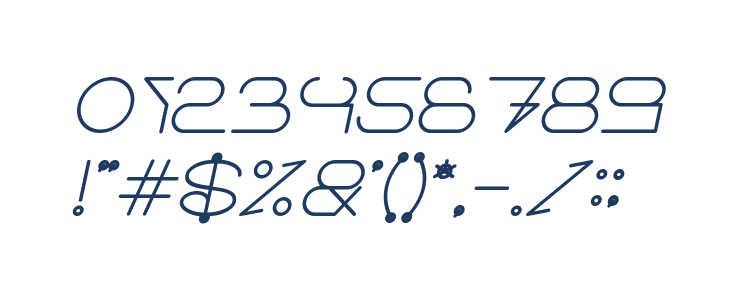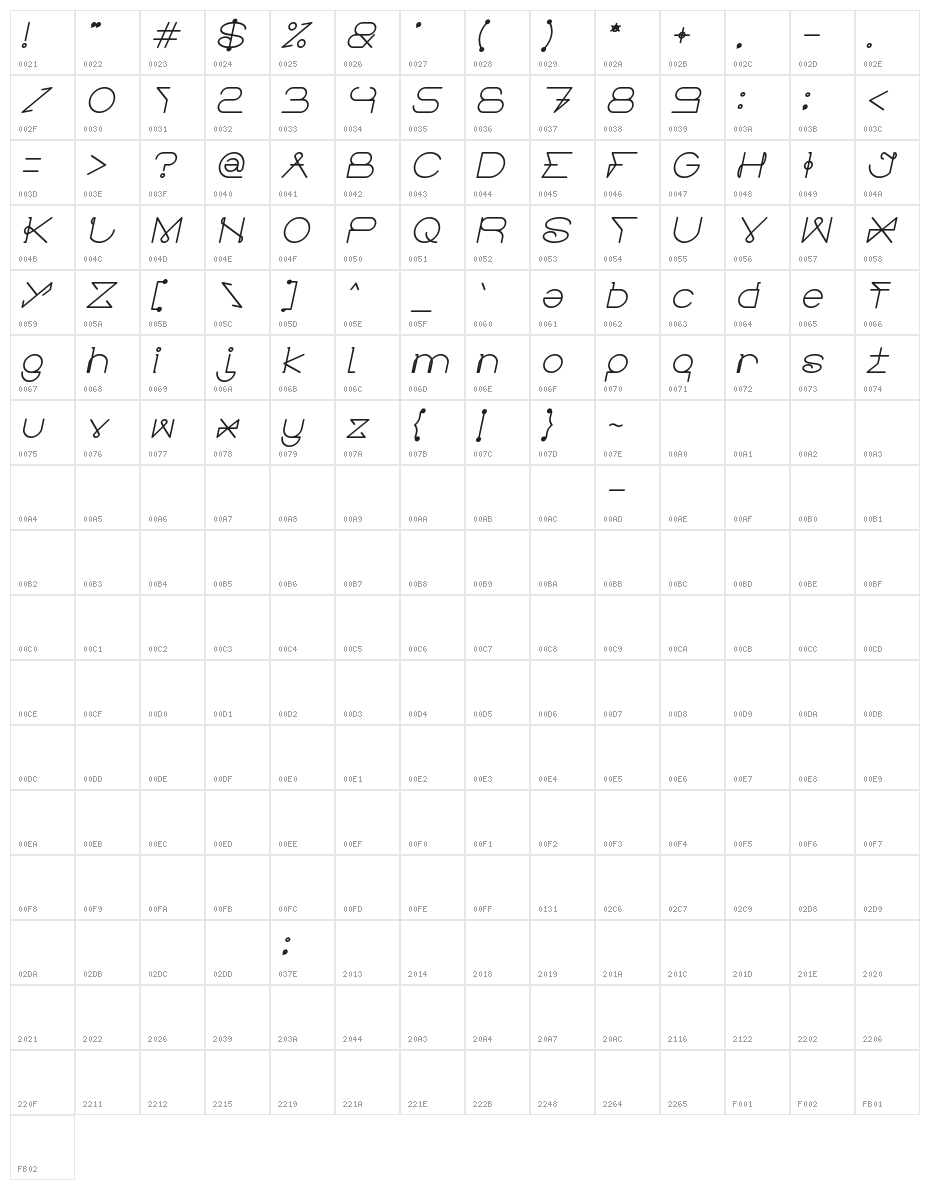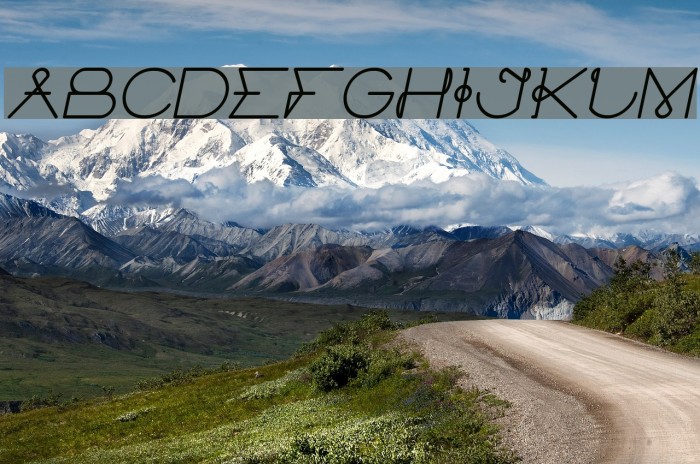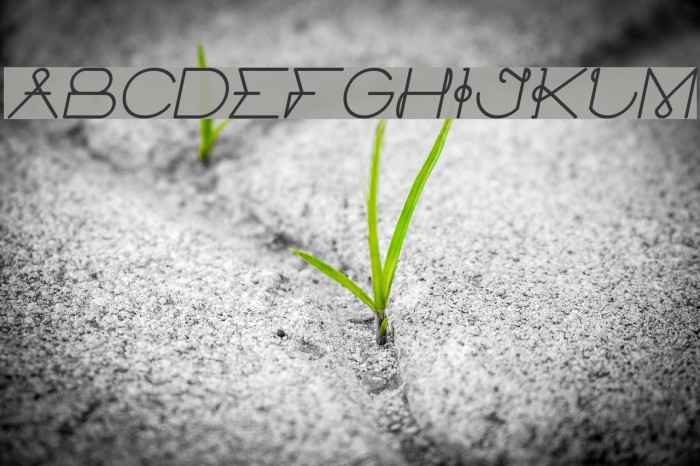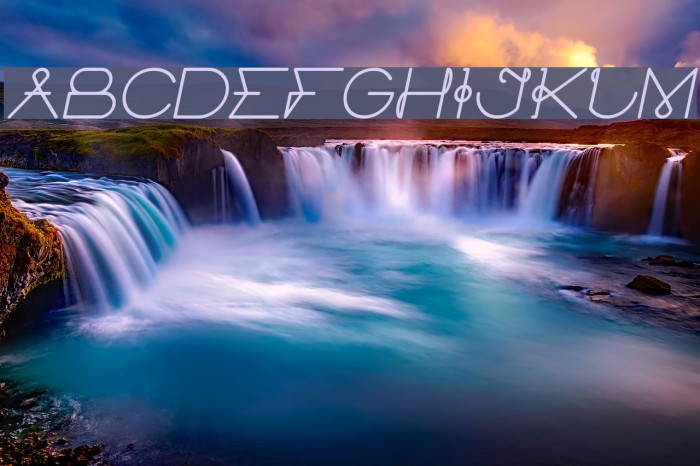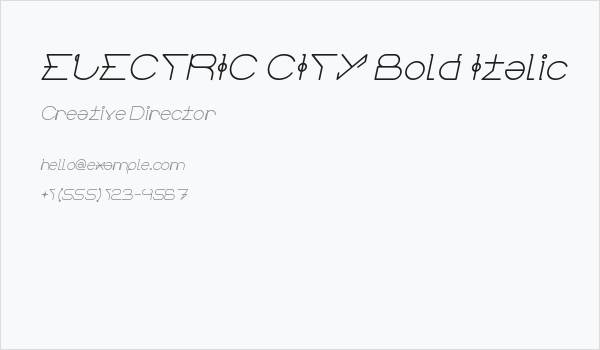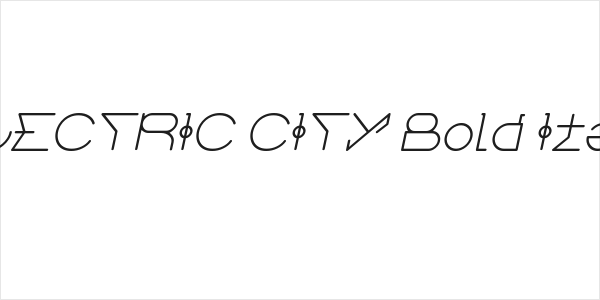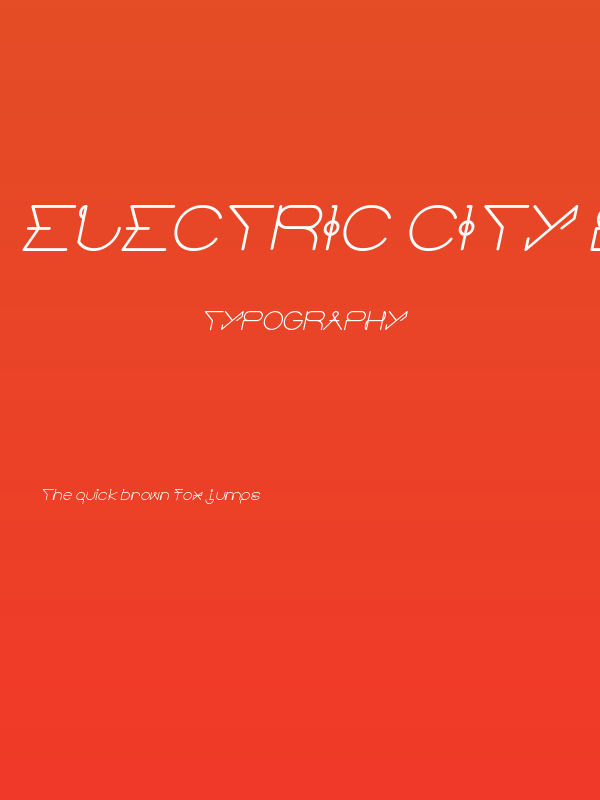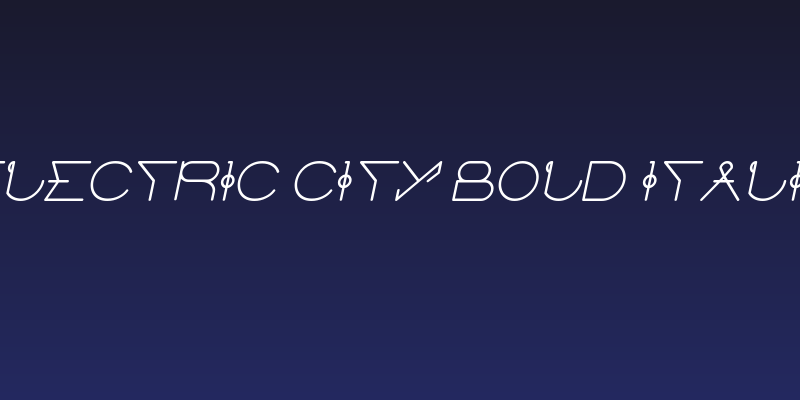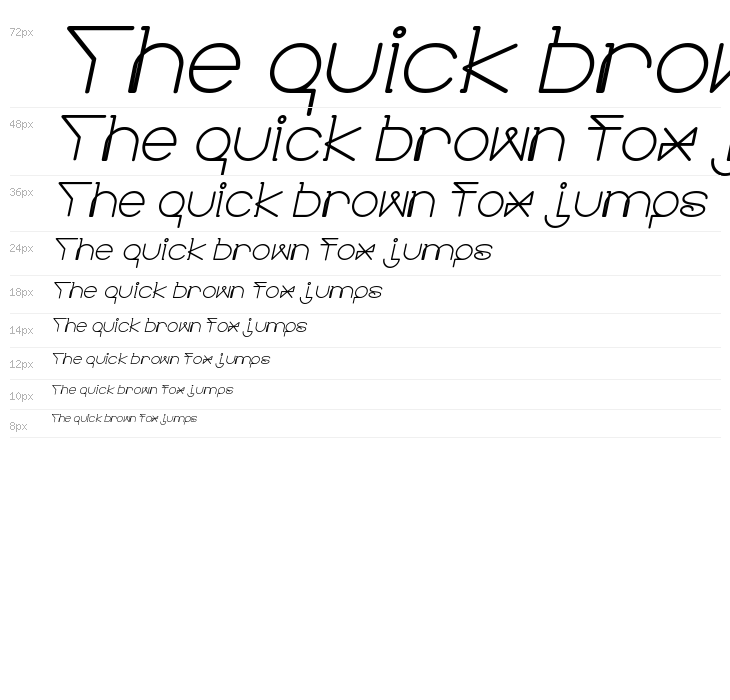
ELECTRIC CITY Bold Italic Font
ELECTRIC CITY Bold Italic Description
This font features a futuristic and geometric design, characterized by its angular and interconnected letterforms. The uppercase and lowercase letters exhibit a unique blend of sharp edges and smooth curves, creating a dynamic and energetic appearance. The numerals and special characters maintain this cohesive style, with consistent line weights and distinctive shapes. The font's bold and italic attributes enhance its modern and edgy aesthetic, making it stand out in any design context. Its overall style is both innovative and playful, suitable for projects that require a contemporary and eye-catching typeface.
| Proposed Projects | Ideal for tech-related branding, sci-fi movie posters, video game titles, and modern advertising campaigns. |